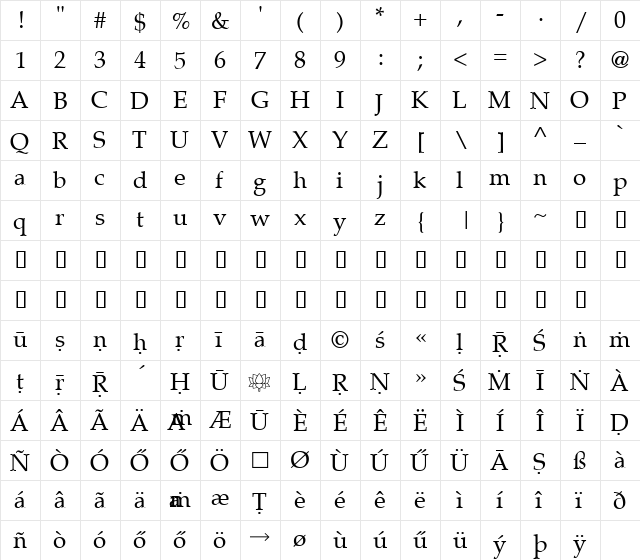
Palatino Sanskrit Hu Regular
Design Context for Palatino Sanskrit Hu Typeface
Palatino Sanskrit Hu takes a measured approach to typography — its balanced proportions and neutral character make it a reliable workhorse for both digital and print work.